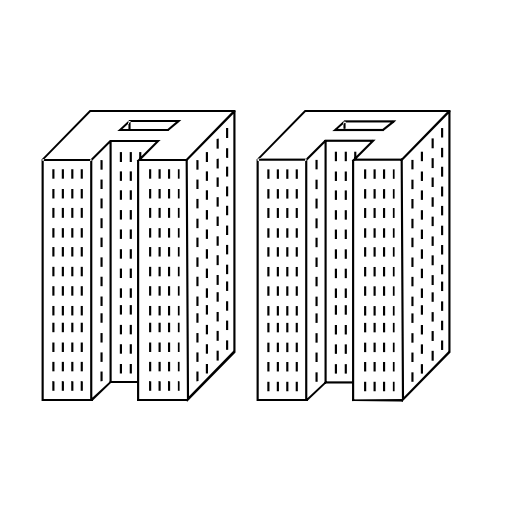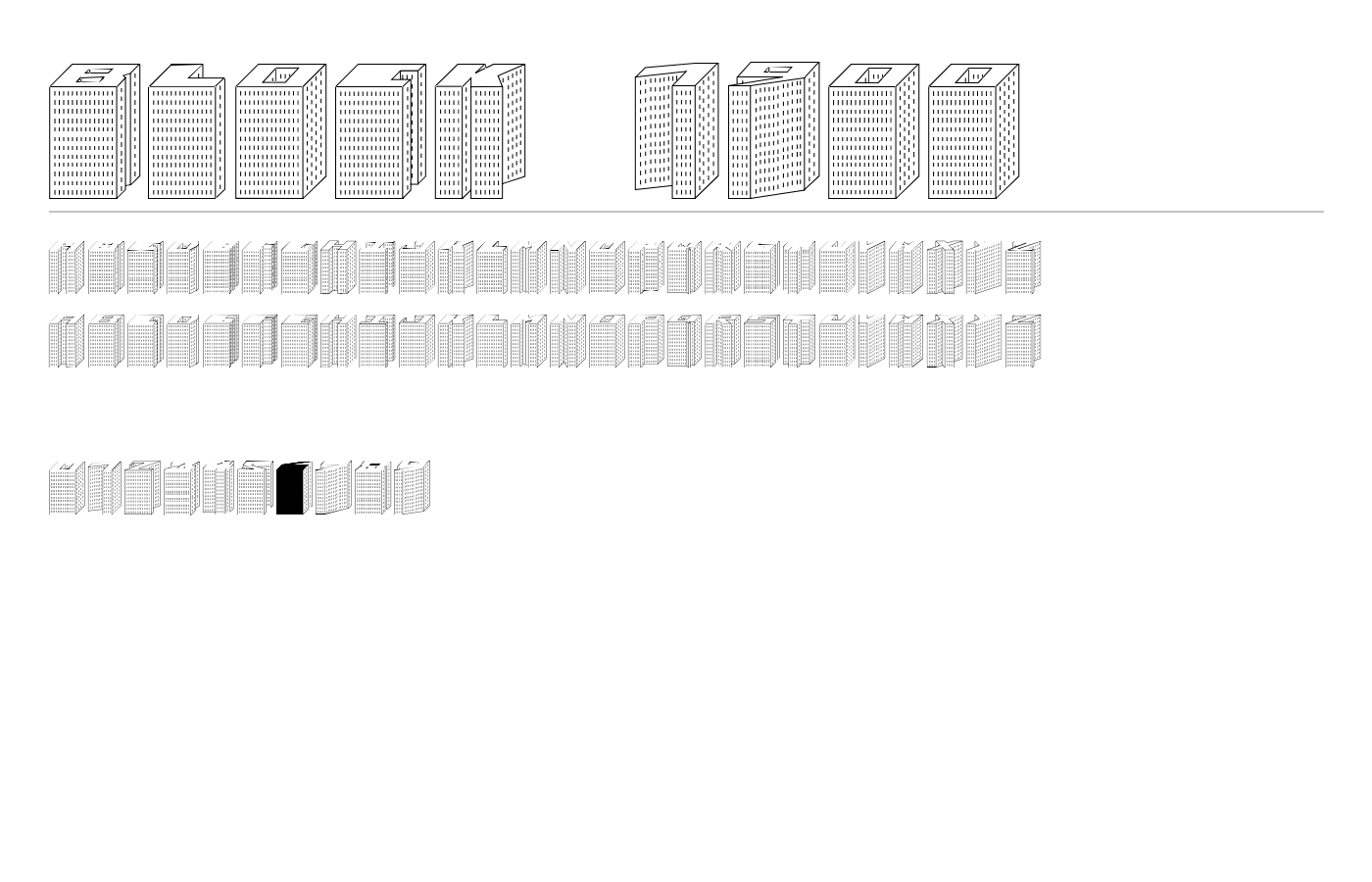
Block 1900 is a unique decorative font featuring three-dimensional, block-style letters with a textured pattern reminiscent of architectural structures. Its geometric and bold design creates a vintage industrial vibe, making it perfect for eye-catching headlines, posters, or branding that seeks a strong, retro-futuristic appeal. This font stands out best when used large to showcase its intricate details and distinctive 3D effect.
Block 1900 Font